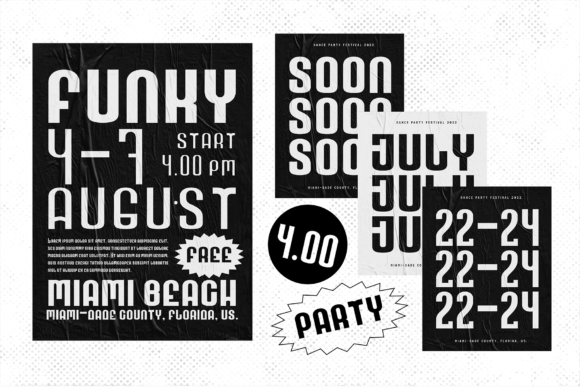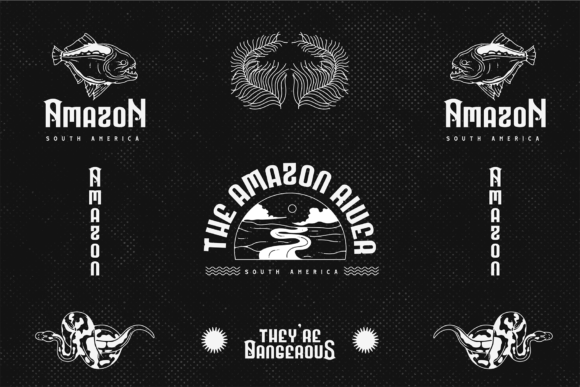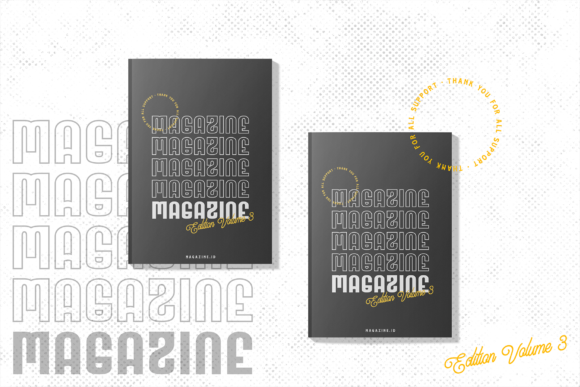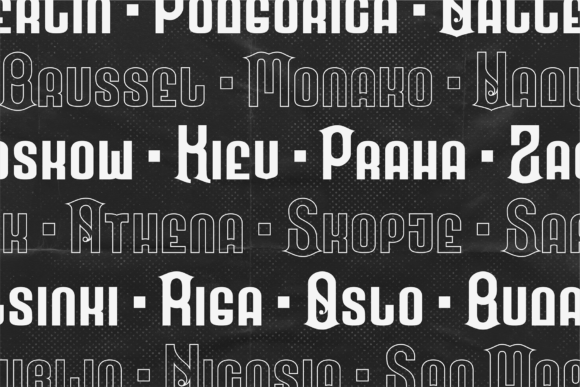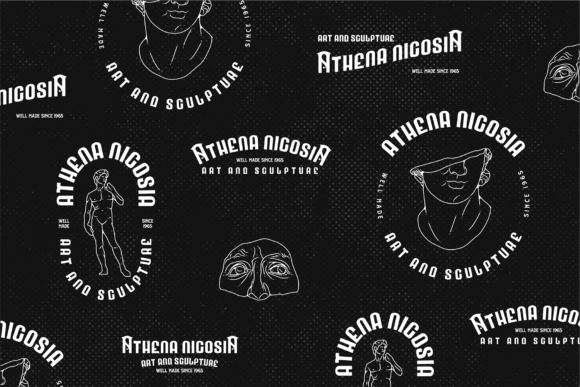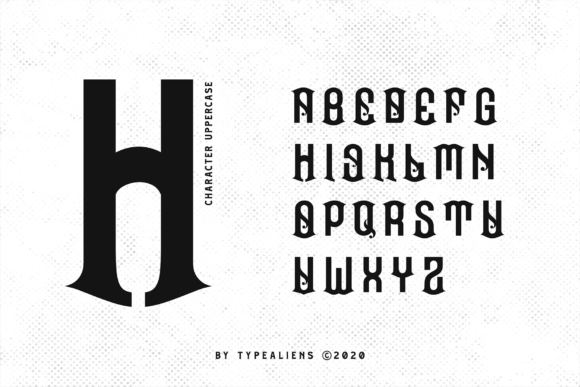
Introduction to Hulf Font
As a designer, you’ve probably experienced that moment when you stumble upon the perfect font – one that elevates your entire creative project and leaves a lasting impression. For me, that moment came when I discovered the Hulf Font, a modern display font that exudes elegance and sophistication. Its smooth curves and bold style make it a perfect fit for fashion branding or editorial designs, adding a touch of high-quality flair to any project.
What sets the Hulf Font apart is its versatility and readability, even on a transparent background, making it an invaluable design resource for designers of all levels. Whether you’re working on a high-end fashion campaign or a creative editorial spread, the Hulf Font is sure to deliver stunning results. And the best part? It’s available for free download, making it an accessible addition to any design project.
Key Features of Hulf Font
- Designed with a unique aesthetic, perfect for modern and minimalist designs
Honest Review: Hulf Font
I recently stumbled upon the Hulf Font, and I must say, it’s been a game-changer for my creative projects. As a designer, I’m always on the lookout for high-quality design resources that can elevate my work. The Hulf Font does just that.
What works well is its versatility. I’ve used it for both digital and print projects, and it looks stunning every time. The font’s clean and modern design makes it perfect for creating a professional and sleek look. I also appreciate that it’s a free download, which is always a bonus when working on a tight budget.
- ✨ Versatile and suitable for both digital and print projects
However, there are a few limitations to consider. The font’s transparent background can sometimes be a bit tricky to work with, especially if you’re not familiar with designing with transparent elements. Additionally, the font’s character set is limited, which may not be ideal for projects that require a wide range of characters.
Overall, I’m impressed with the Hulf Font. It’s a great addition to any designer’s toolkit, and I highly recommend it for anyone looking for a high-quality font for their creative projects.
Hulf Font
Tips for Getting the Most Out of Hulf Font
To get the most out of the Hulf Font, use it in combination with other design elements, such as images and graphics. The font’s transparent background makes it easy to layer over other design elements, creating a cohesive and professional look. Experiment with different font sizes and styles to find the perfect combination for your design.
The Hulf Font is perfect for a variety of creative projects, including logos, business cards, and brochures. Its high-quality design and transparent background make it easy to use in a range of design software, including Canva,